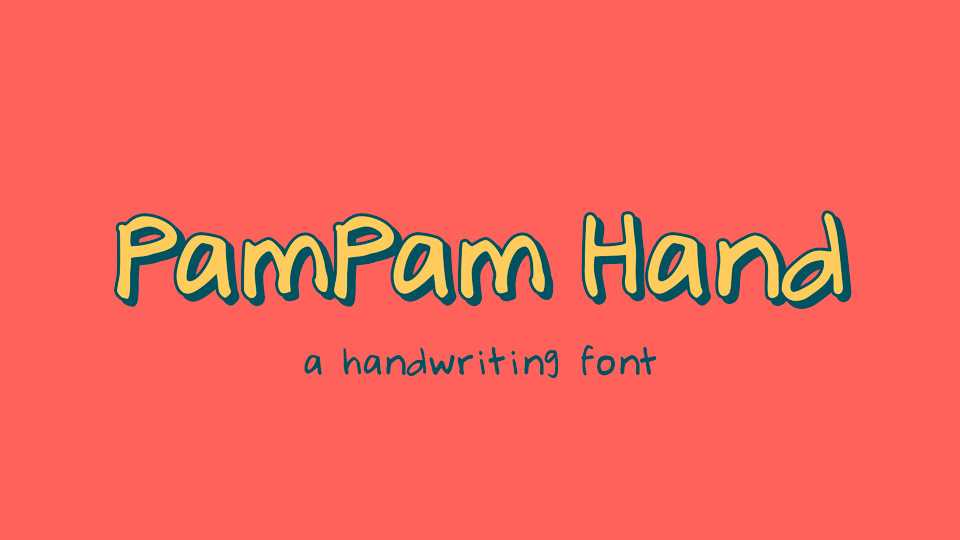
Download PamPam Hand font, a simple and fun handwritten typeface with natural look. PamPam Hand is perfect for craft works, notes, quotes, cards and other projects that need a personal touch.
Designer: Pablo Perez